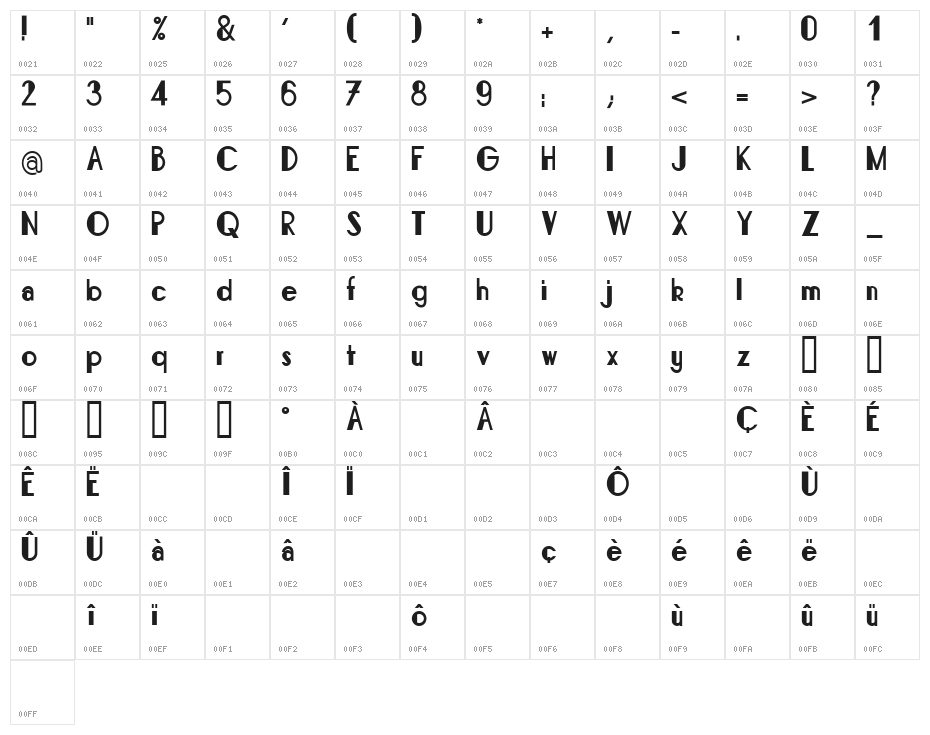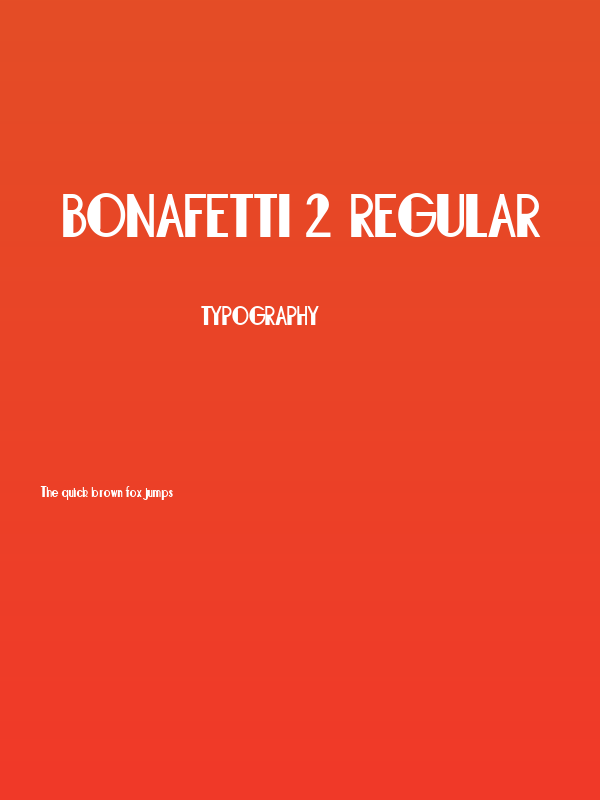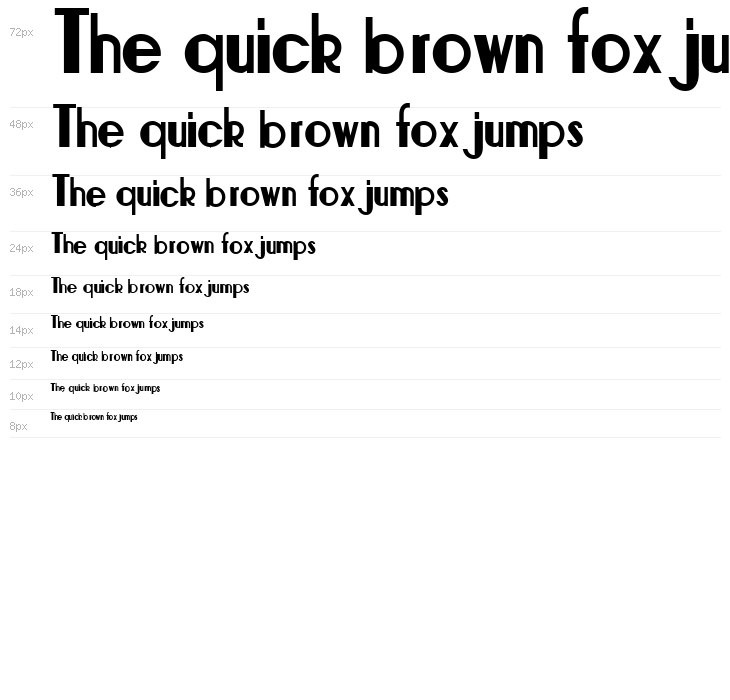
Bonafetti 2 Regular Font
Bonafetti 2 Regular Description
This font features a bold and modern design with clean lines and a geometric structure. The uppercase letters are tall and imposing, while the lowercase letters maintain a consistent height, offering a harmonious balance. The numbers are robust and clear, making them easily legible. Special characters are designed with the same boldness, ensuring they stand out. The overall style is sleek and contemporary, suitable for various design needs.
Luc Mahler